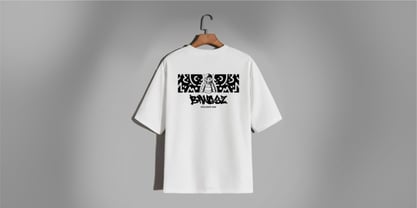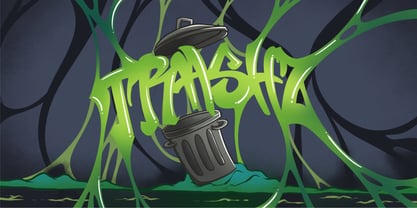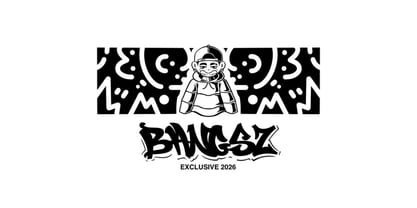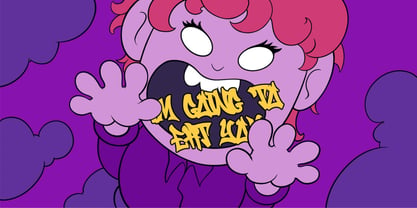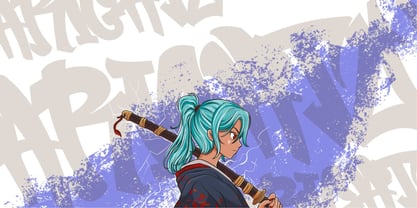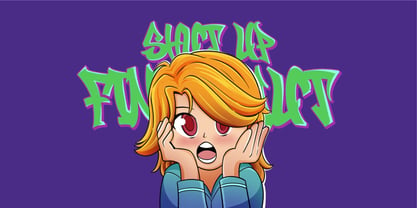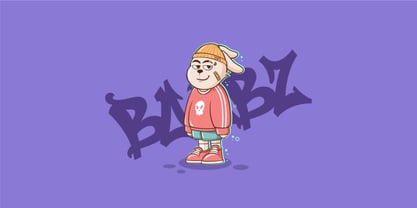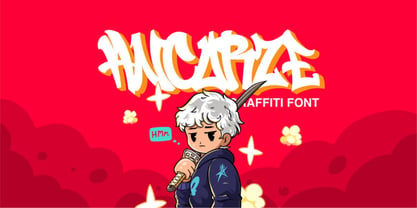
Ancorze
by Taznix Creative
The Ancorze Font Family was designed by Ricky Hartasni and published by Taznix Creative. Ancorze contains 1 styles. More about this family
ANCORZE — A bold graffiti-inspired display font that brings raw street energy to every design. With dynamic letterforms, urban attitude, and eye-catching style, ANCORZE is made for creators who want to stand out. Perfect for posters, album covers, streetwear branding, gaming, social media graphics, and any project that demands a fearless, modern look. Turn your words into statement pieces with ANCORZE